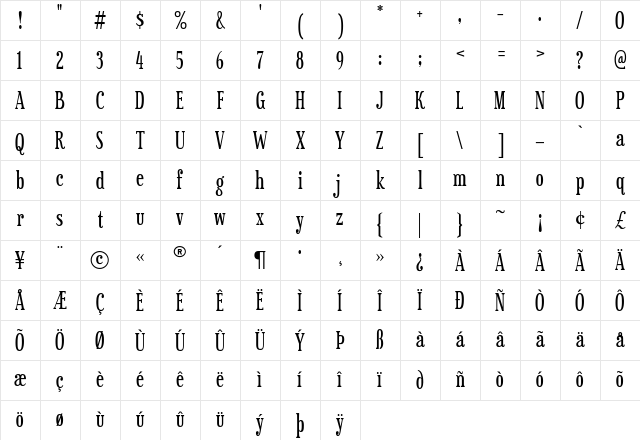
Sexsmith Regular
Sexsmith Regular Family
Sexsmith Regular
Design Context for Sexsmith
Sexsmith is a composed and adaptable typeface that performs quietly and consistently across a wide range of design contexts.